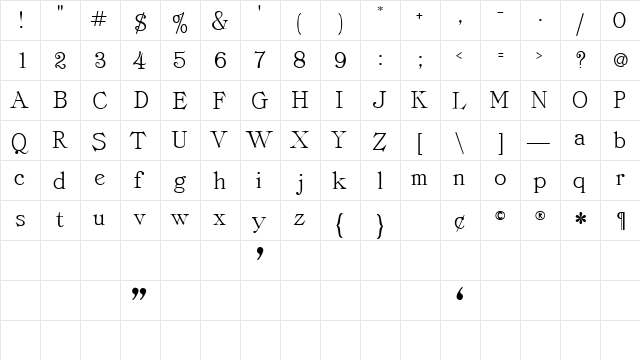
DelectSSK Regular Font Preview
DelectSSK Regular
DelectSSK Regular Font Details
Design Context for DelectSSK Typeface
DelectSSK is a composed and adaptable typeface that performs quietly and consistently across a wide range of design contexts.
Pro Tip: Use DelectSSK in both headline and body roles to test its range before committing to a single application.